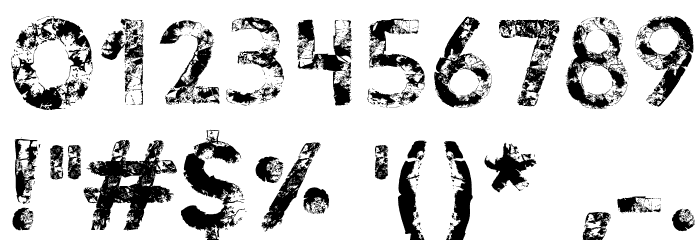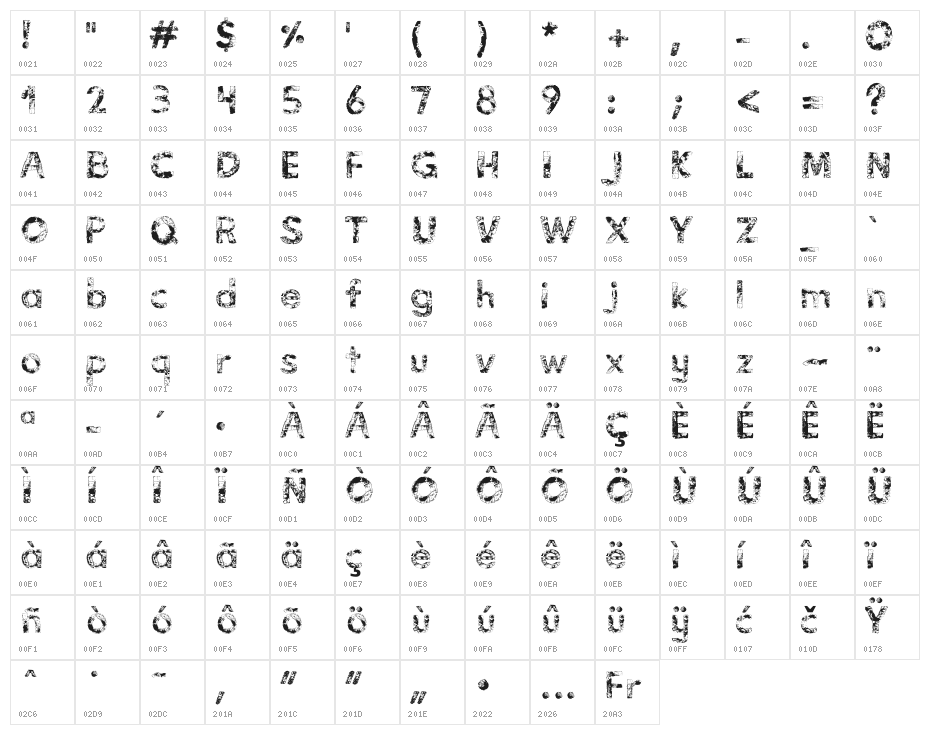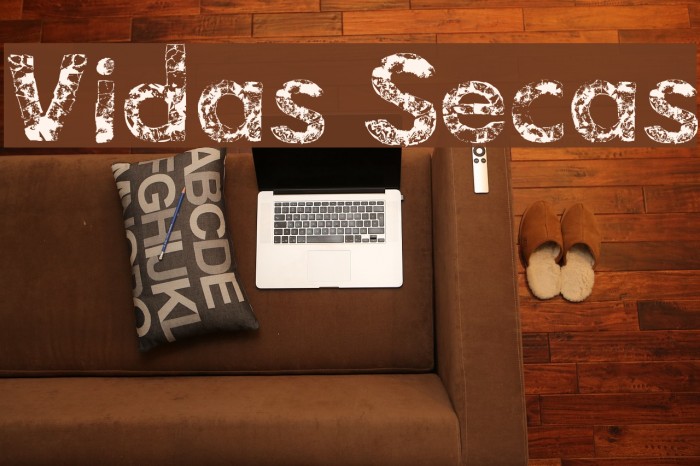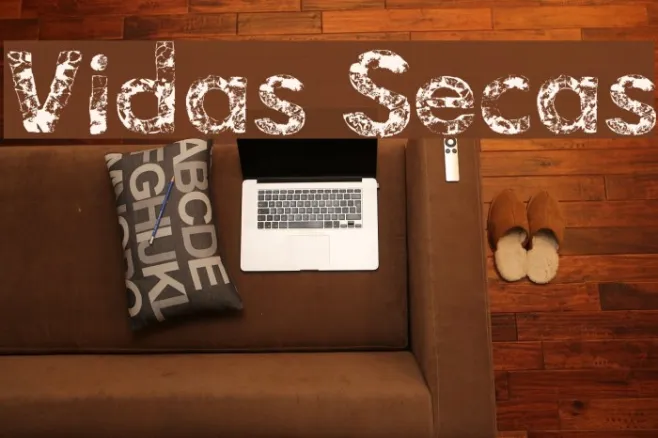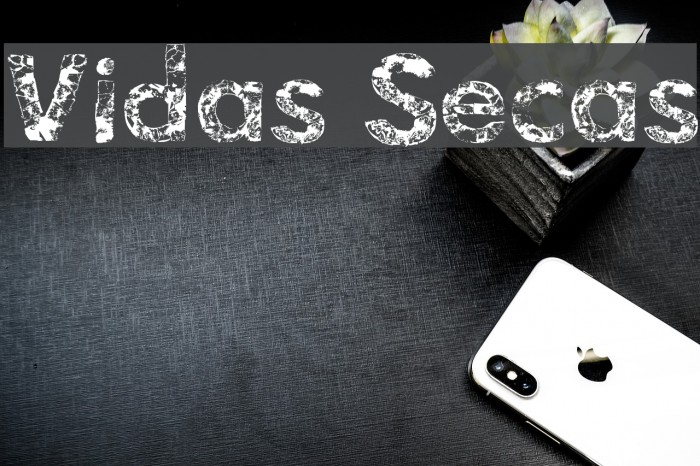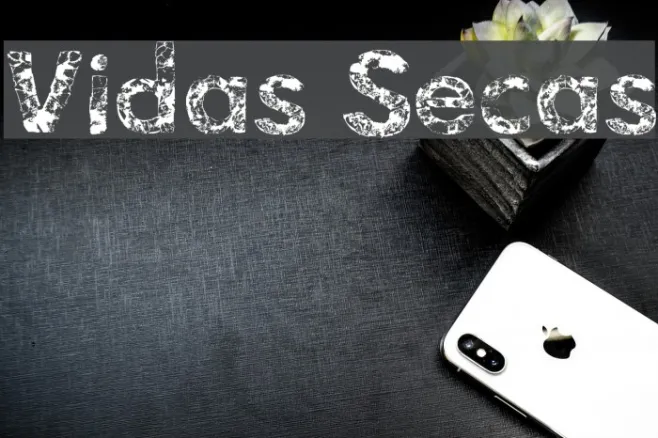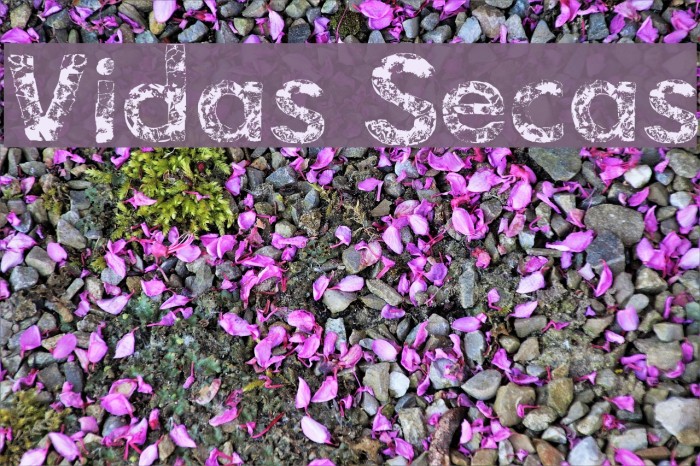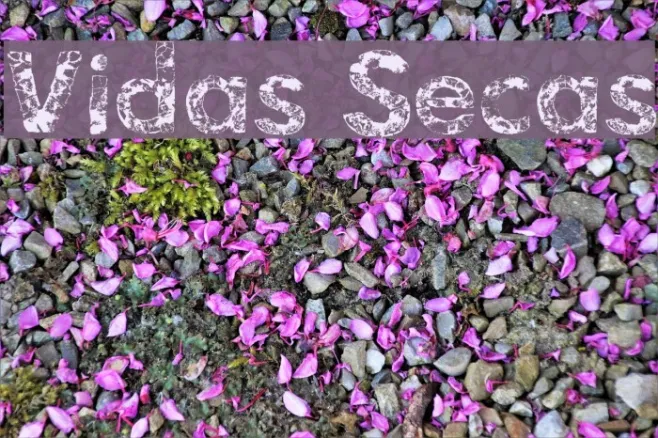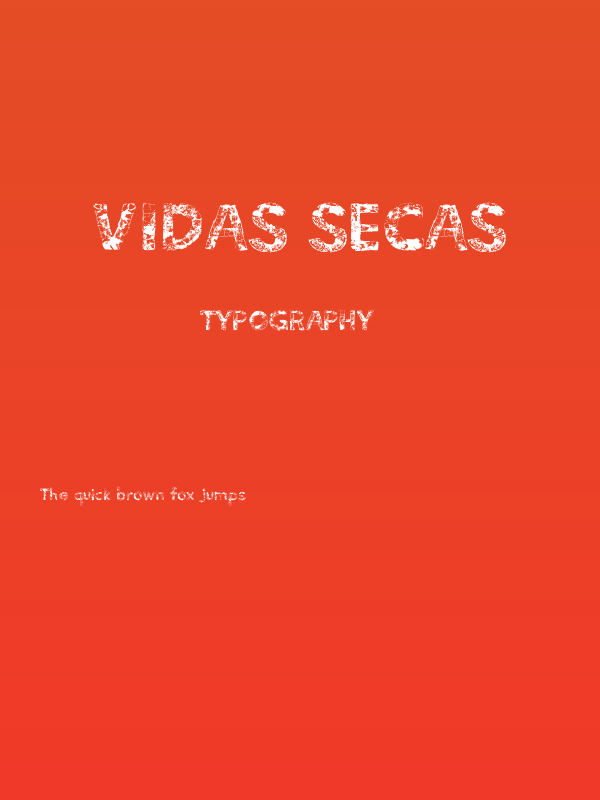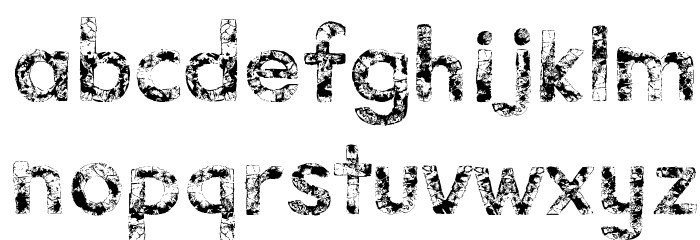
Vidas Secas Font
Vidas Secas Description
This font features a distressed, textured appearance, giving it a rugged and worn look. The characters are bold and impactful, with a rough, uneven surface that suggests a weathered or eroded effect. This style is reminiscent of grunge or urban decay, making it ideal for designs that require a raw, edgy aesthetic. The uppercase and lowercase letters maintain a consistent style, with numbers and special characters following suit. The overall impression is one of strength and resilience, with a unique character that stands out in any design.
| Overall Style | Grunge, Urban |
| Proposed Projects | Ideal for album covers, posters, streetwear branding, or any project needing an edgy, urban feel. |